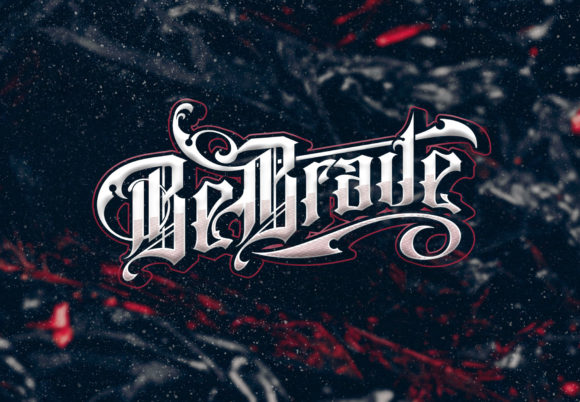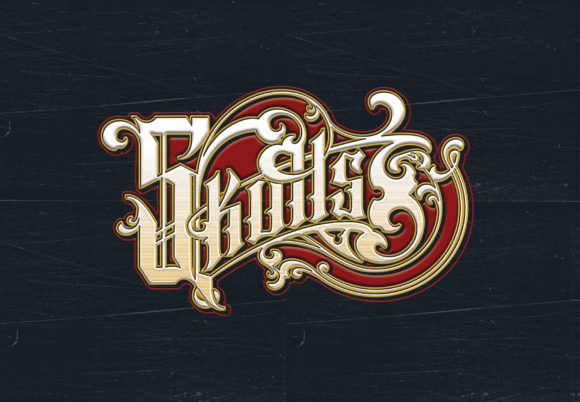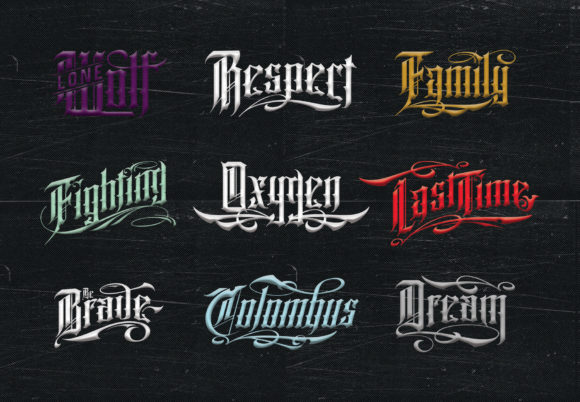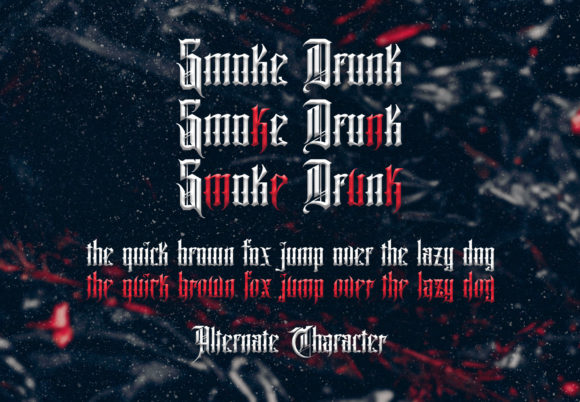
Introducing Code Black Font: The Ultimate Blackletter Typeface for Designers and Crafters
Are you tired of using the same old fonts for your designs? Look no further than Code Black Font, a dramatic, highly detailed, and assertive blackletter font that’s perfect for making a statement. With its bold and striking appearance, Code Black is ideal for a wide range of design applications, from logos and tattoos to web designs and posters.
What is Code Black Font?
Code Black Font is a blackletter typeface that’s designed to grab attention. Its dramatic and highly detailed letterforms are perfect for creating bold and eye-catching designs that demand to be noticed. Whether you’re a designer looking to create a striking logo or a crafter looking for a unique font for your next project, Code Black is the perfect choice.
Key Features of Code Black Font
- Dramatic and Assertive: Code Black Font is designed to make a statement. Its bold and striking appearance is perfect for creating designs that demand attention.
- Highly Detailed: The font features intricate details that give it a unique and authentic look.
- Versatile: Code Black Font works incredibly well on a wide range of design applications, from logos and tattoos to web designs and posters.
- Easy to Read: Despite its bold appearance, Code Black Font is easy to read, making it perfect for use in a variety of contexts.
Uses for Code Black Font
So, what can you use Code Black Font for? The possibilities are endless, but here are a few ideas to get you started:
- Logos: Create a striking logo for your business or brand with Code Black Font.
- Tattoos: Use Code Black Font to create a unique and eye-catching tattoo design.
- Web Designs: Add a touch of drama and sophistication to your website with Code Black Font.
- Posters: Create eye-catching posters for your next event or promotion with Code Black Font.
- Stationery: Use Code Black Font to create unique and stylish stationery, such as business cards and letterheads.
Why Choose Code Black Font?
So, why should you choose Code Black Font for your next design project? Here are just a few reasons:
- Unique and Authentic: Code Black Font is a unique and authentic blackletter typeface that’s sure to stand out from the crowd.
- High-Quality: The font is designed to high-quality standards, ensuring that it looks great in any context.
- Easy to Use: Code Black Font is easy to use and can be easily integrated into your design workflow.
- Versatile: The font is versatile and can be used in a wide range of design applications.
Tips for Using Code Black Font
Here are a few tips for using Code Black Font effectively:
- Use it Sparingly: Code Black Font is bold and striking, so use it sparingly to avoid overwhelming your design.
- Pair it with Other Fonts: Pair Code Black Font with other fonts to create a unique and interesting contrast.
- Pay Attention to Legibility: Make sure to pay attention to legibility when using Code Black Font, especially in smaller sizes.
In conclusion, Code Black Font is a dramatic, highly detailed, and assertive blackletter font that’s perfect for designers and crafters looking to make a statement. With its bold and striking appearance, Code Black is ideal for a wide range of design applications, from logos and tattoos to web designs and posters. So why wait? Download Code Black Font today and start creating stunning designs that demand attention!